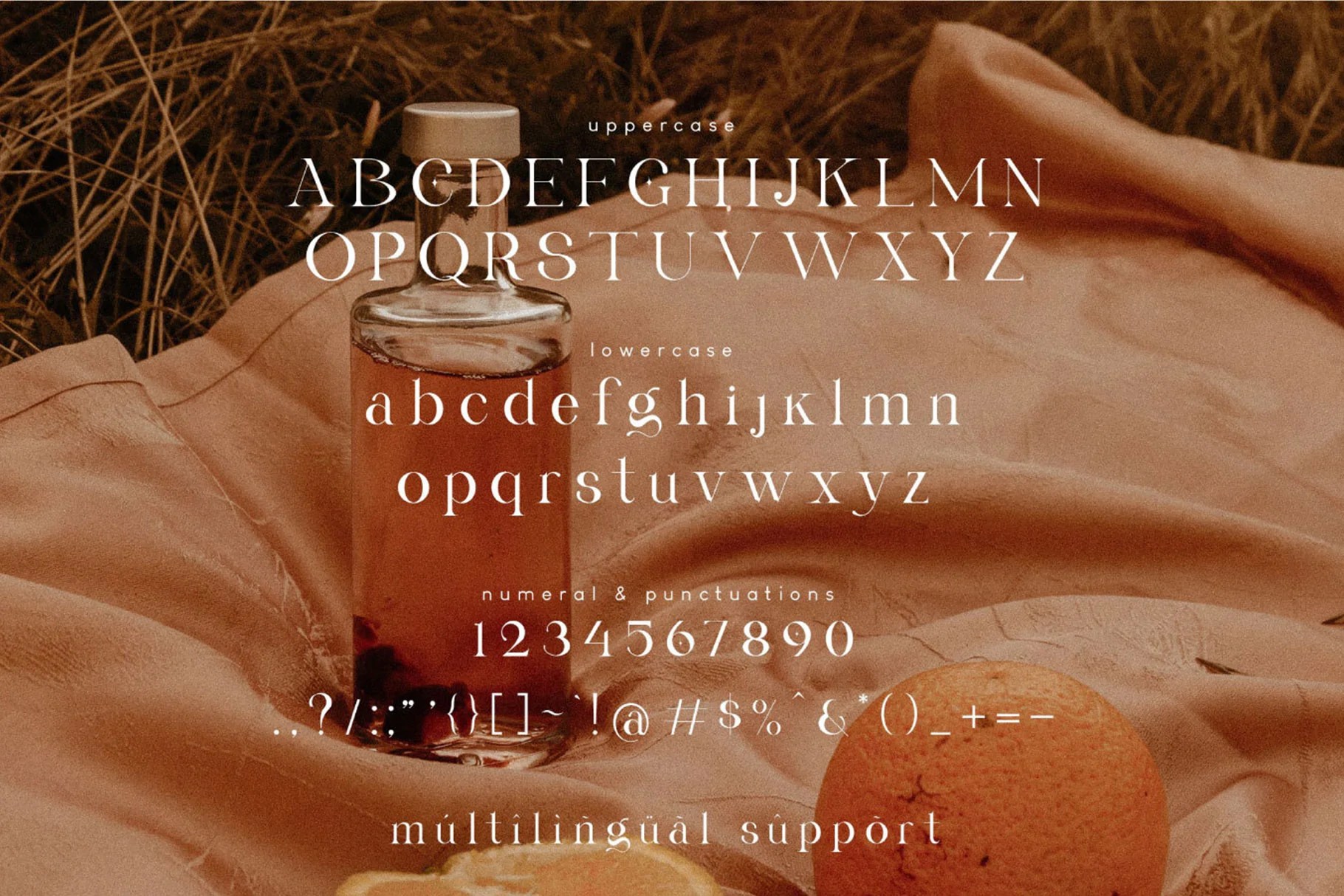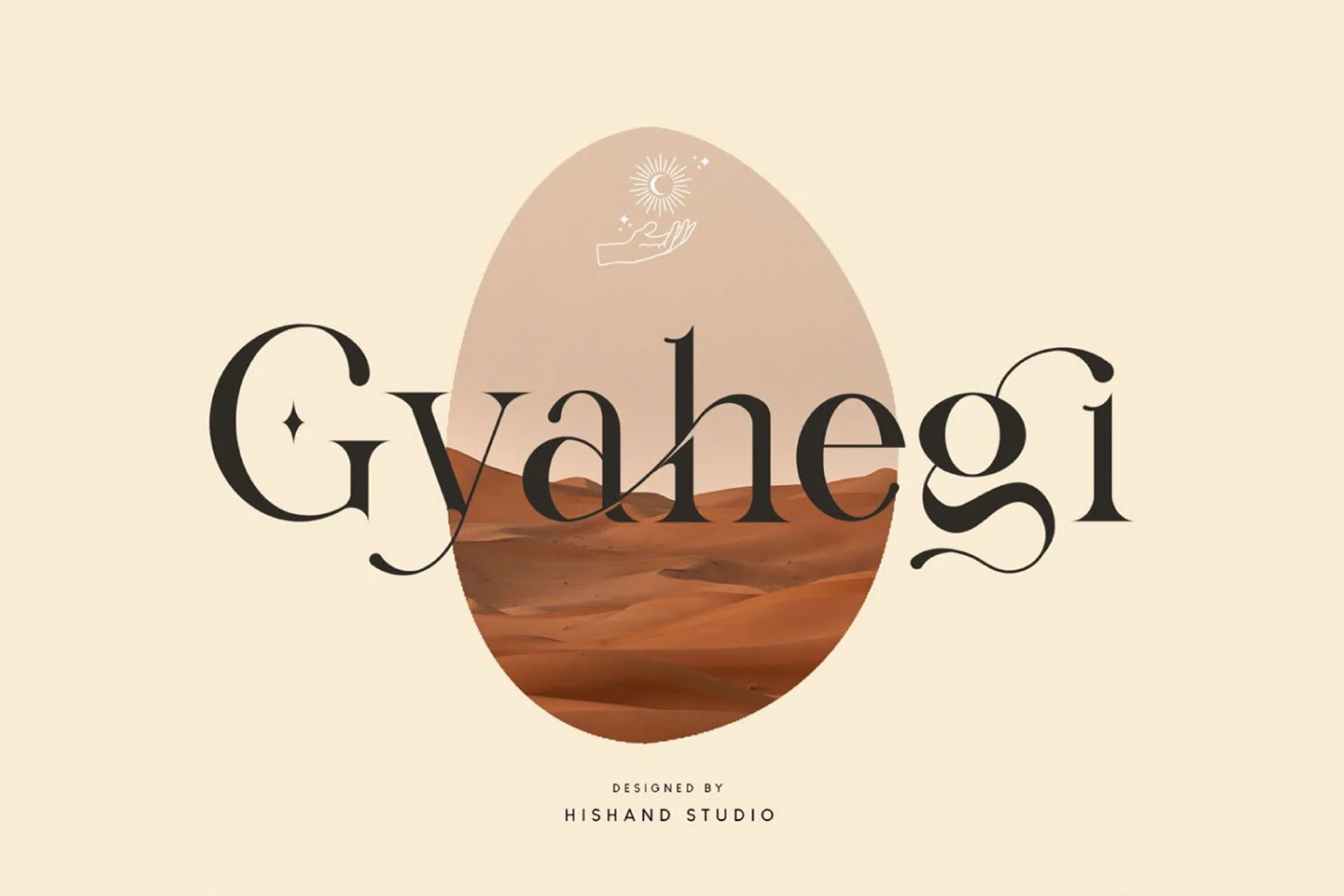
Gyahegi Modern Serif Typeface
Looking for a perfect font to fire up your projects? Introducing Gyahegi Modern Serif Typeface. Gyahegi is an elegant modern serif font that is aesthetically pleasing with beautiful ligatures. It is great for: logo branding, advertisement, product packaging, social media posts, apparel, magazine headers and much more!